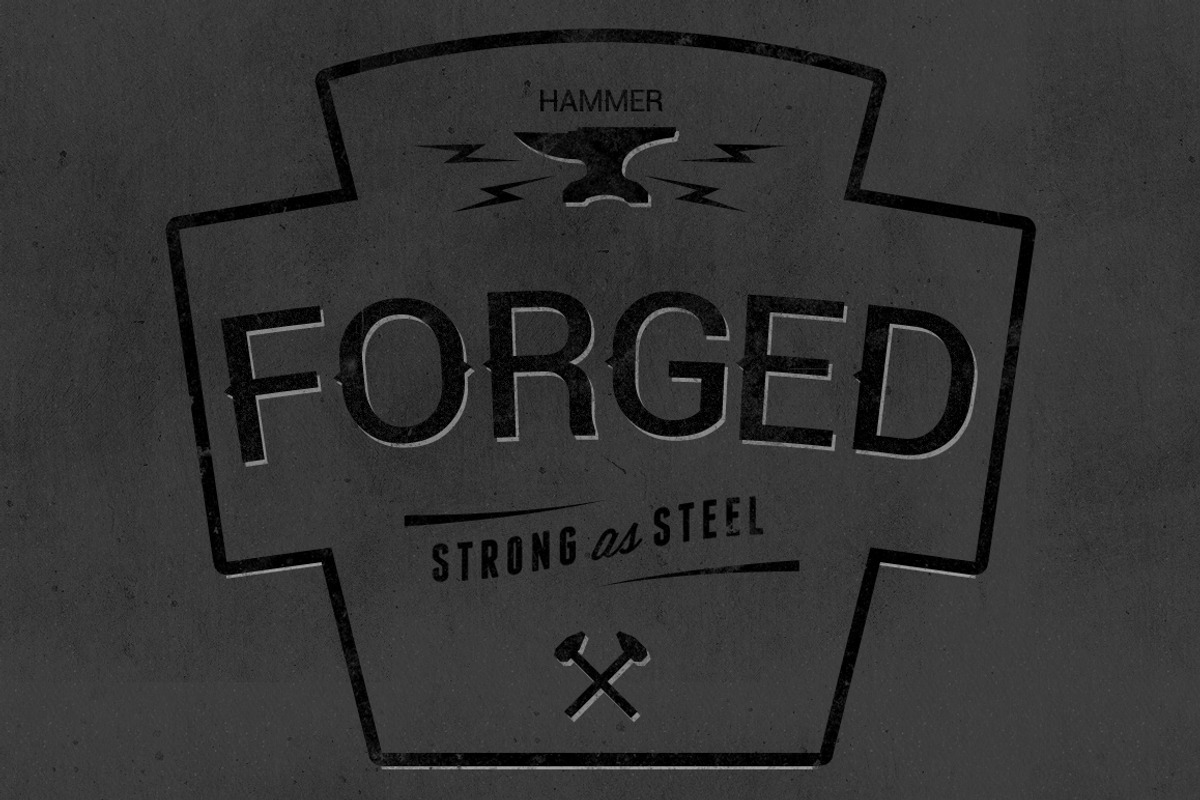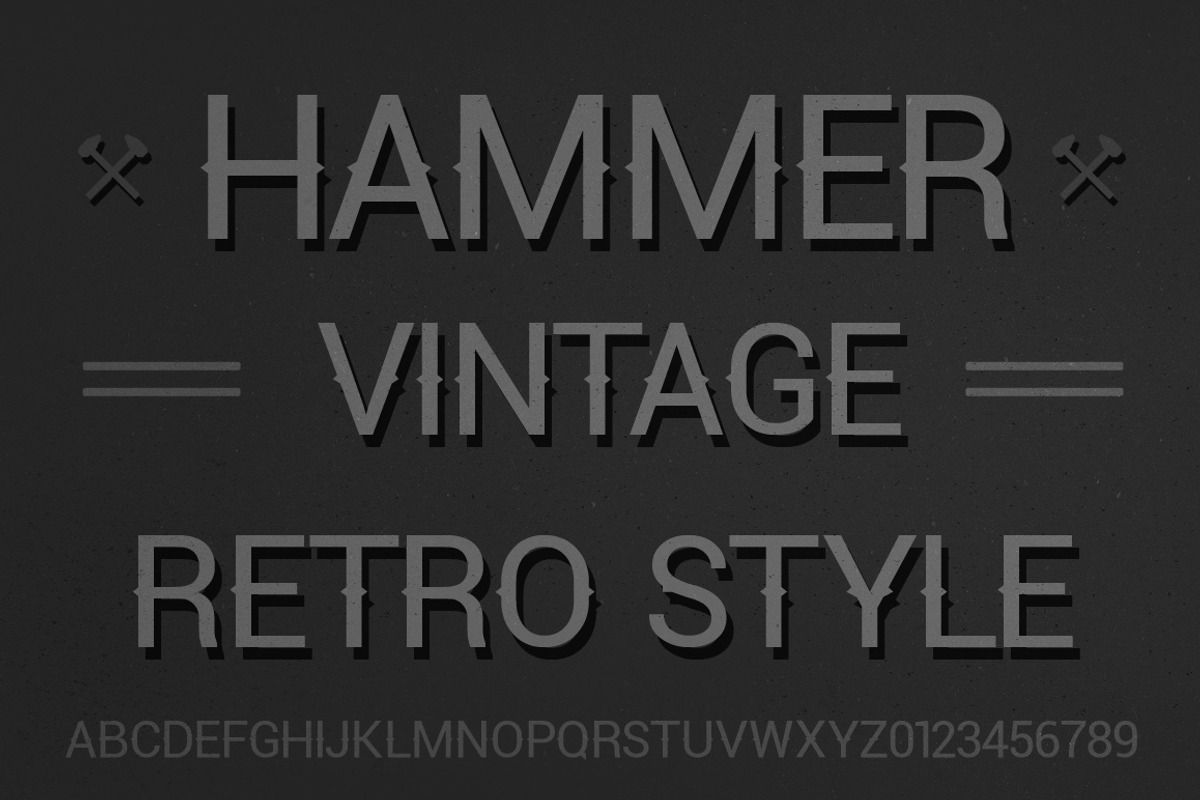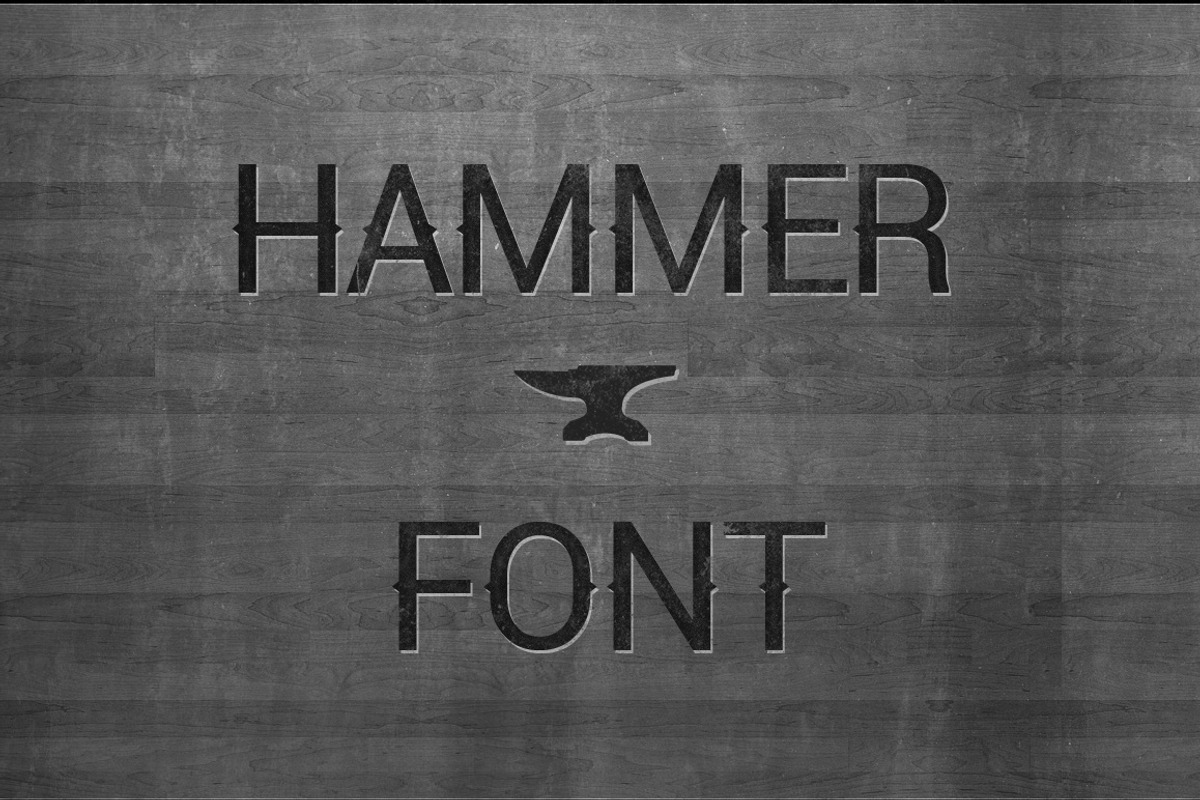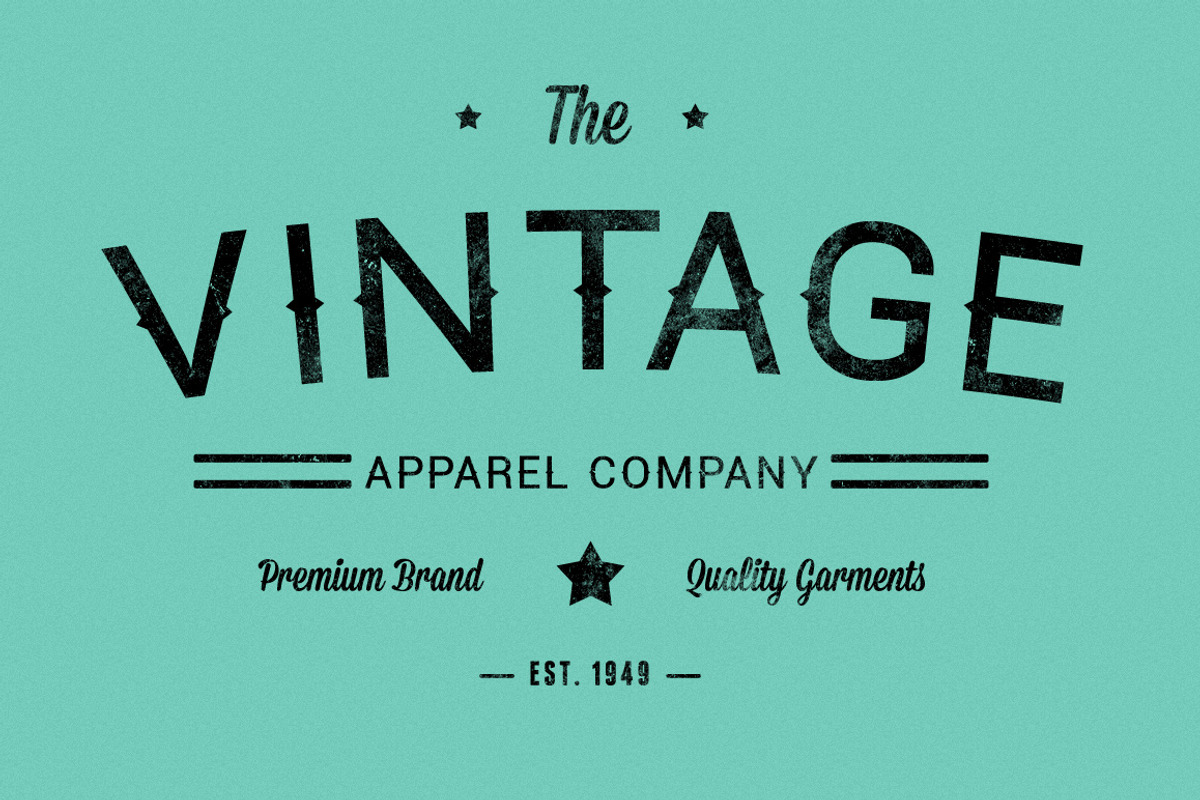
Hammer Font - Vintage Display Font
Hammer Font - Vintage Display Font by vladocar is a font selected for branding, posters, packaging, typography.
Why Hammer Font - Vintage Display Font is worth a look
Hammer Font - Vintage Display Font by vladocar fits naturally into Branding, posters, packaging, typography.